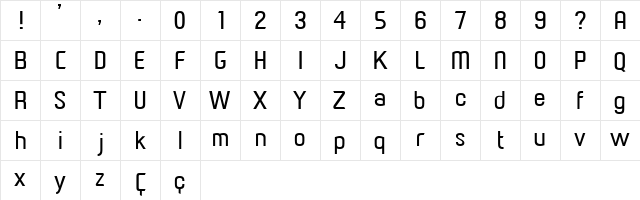
Paragon Medium
| Foundry | Tino Mendes |
| Designer | Tino Mendes |
Design Context for Paragon Typeface
Paragon takes a measured approach to typography — its balanced proportions and neutral character make it a reliable workhorse for both digital and print work.
Pro Tip: Use Paragon in both headline and body roles to test its range before committing to a single application.